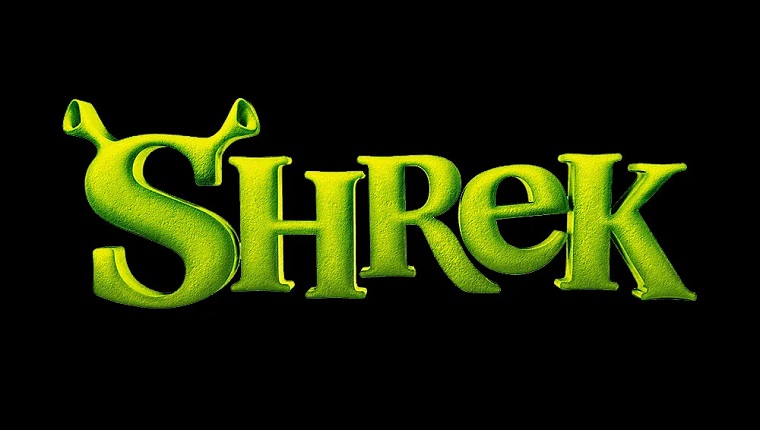
Shrek Font is the fun and quirky style of writing inspired by the lovable green ogre, Shrek, from the movies. It’s like the clothes words put on when they want to have a silly and playful party! This font adds a whimsical and goofy touch to your writing, making it great for fun projects.
Reasons to Use Shrek Font
It’s fantastic for making kids’ stories, creating cheerful invitations, and adding a touch of laughter to your writing. With Shrek Font, your words become as funny as a Shrek movie!
Many fonts are available that are similar to this font, but the most similar to this typeface is Carnot Font in the font family.
Well-known and famous designer Kevin Welson designed it. This font belongs to the display typeface. It was first released for the famous American movie.